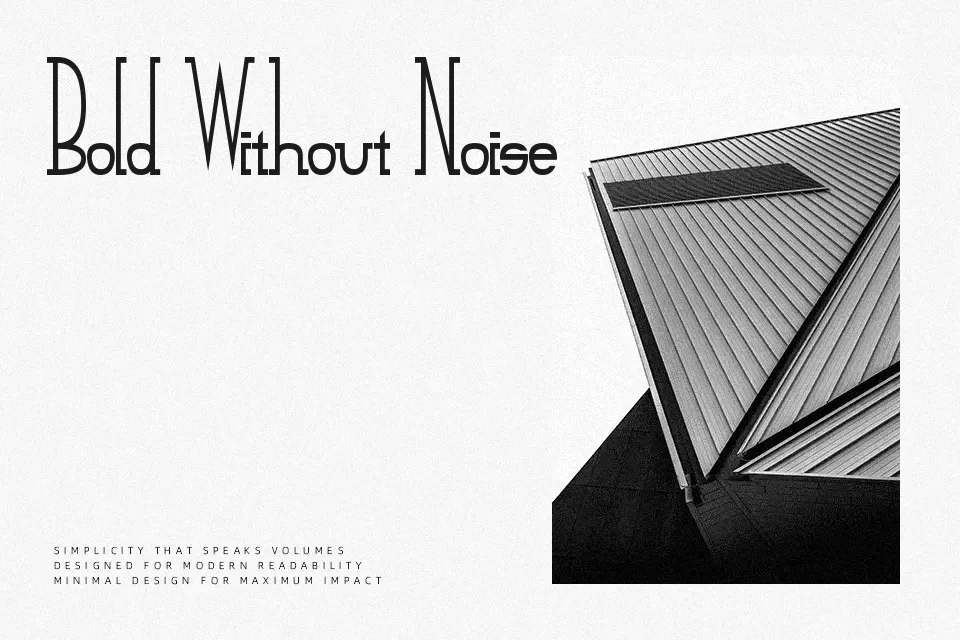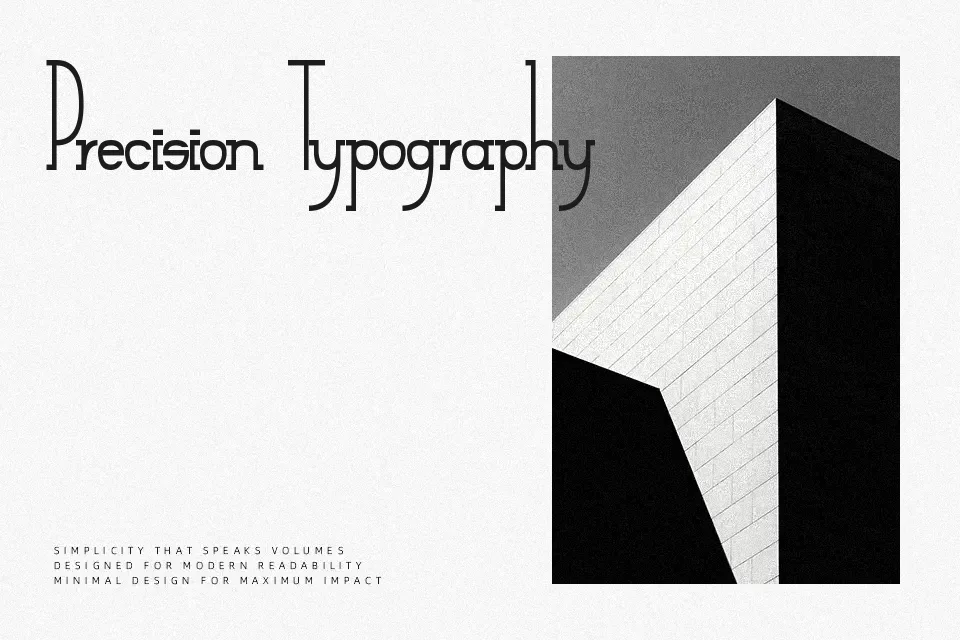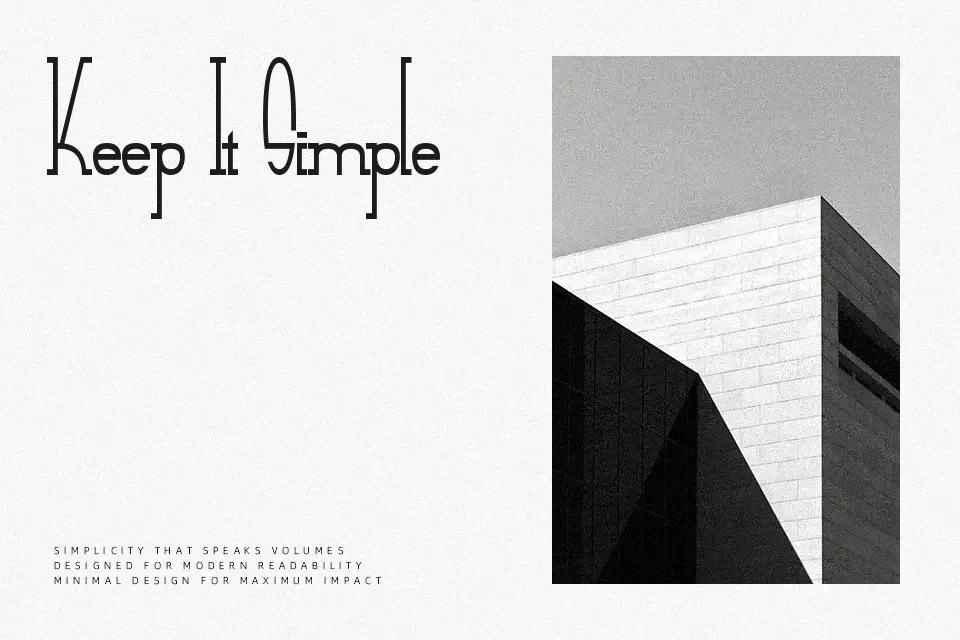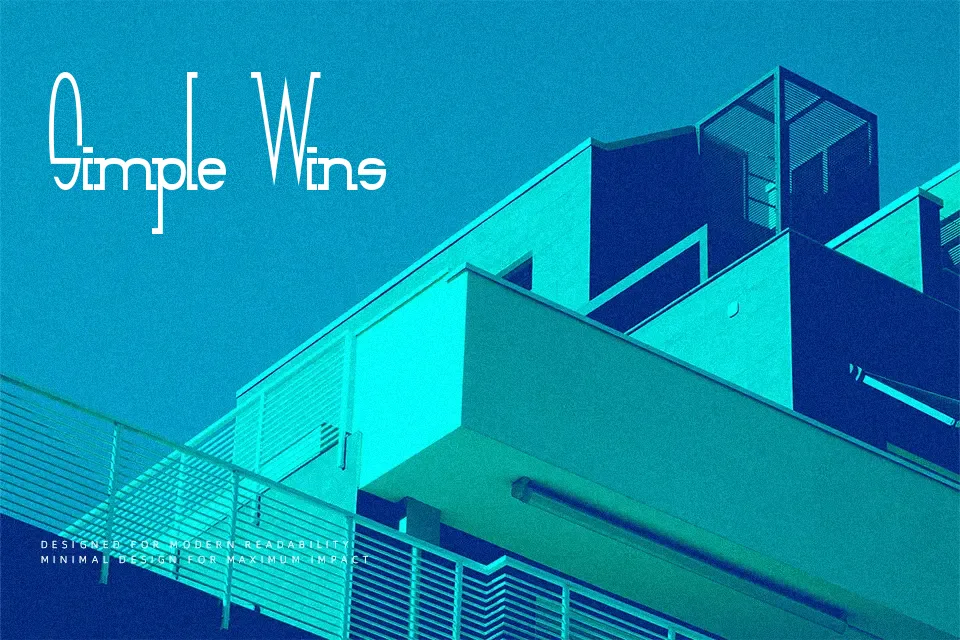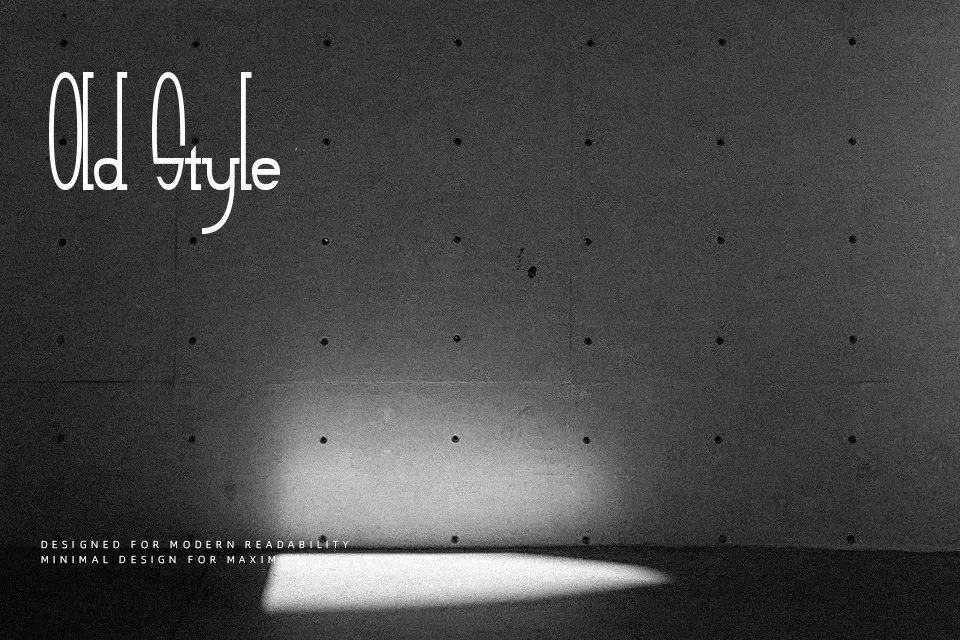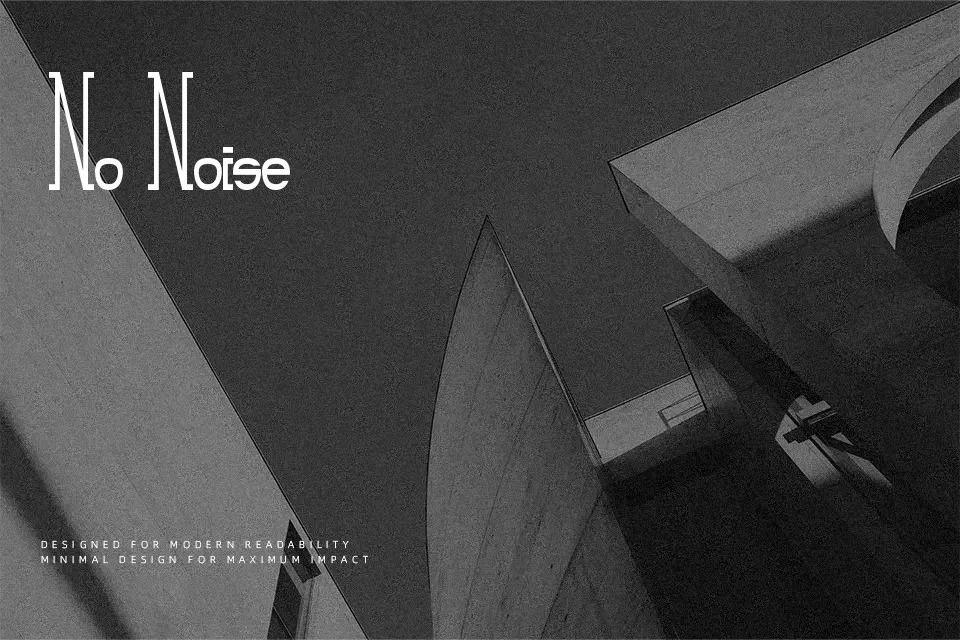
Small Tall Font
Small Tall Font introduces an unconventional visual hierarchy defined by elongated capitals paired with condensed, petite letterforms. The typeface relies on uniform monoline strokes, rounded corners, and tightly calibrated letter spacing that together produce an engaging, rhythmic texture across display lines. Proportions vary dramatically between individual glyphs, giving short phrases and branding assets an animated, retro-inspired appearance. While the letterforms maintain reliable legibility in prominent titles, logos, and advertising banners, the extreme height disparities reduce comfort during continuous reading. Consequently, the design remains less suitable for dense body paragraphs or small interface text where standard proportions are essential.
Best For: retro poster headlines, quirky packaging labels, creative logo badges, merchandise graphics
Not Ideal For: long body paragraphs, small interface labels, dense editorial text, technical documentation
Perfect for advertising, headline, and logo, with a clean and condensed style.